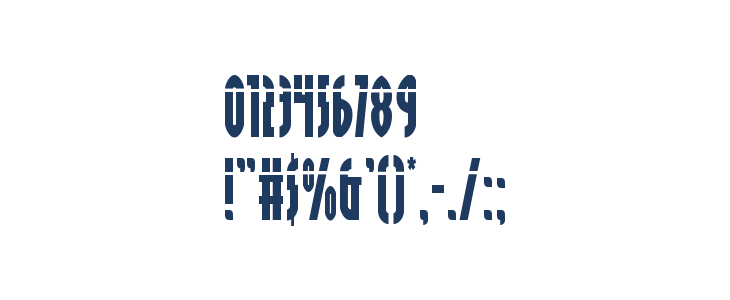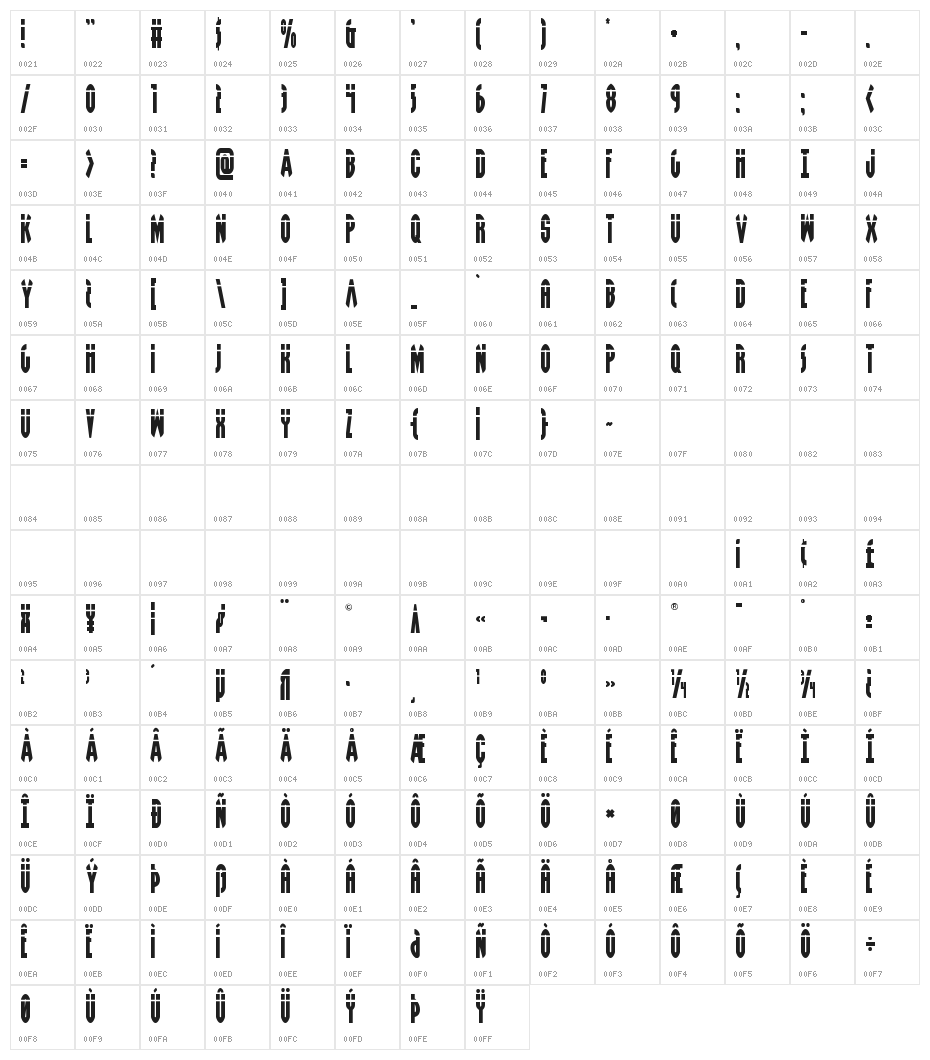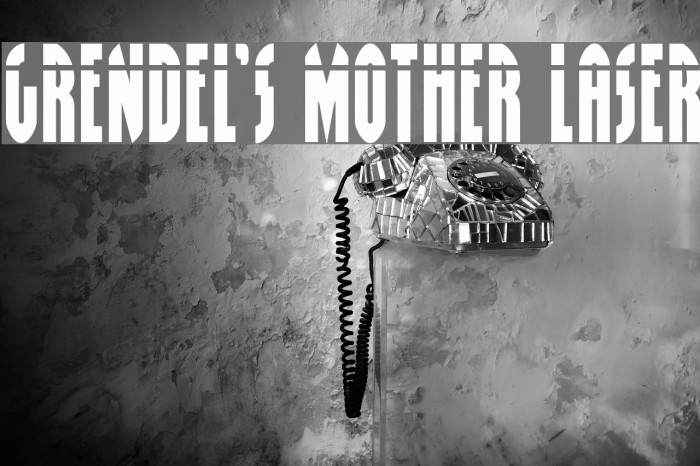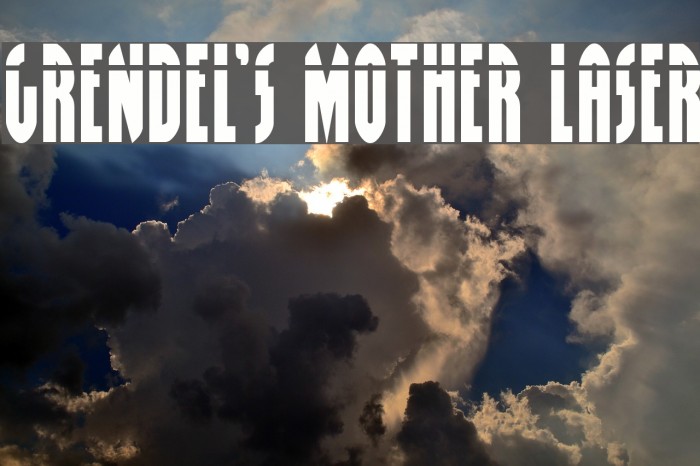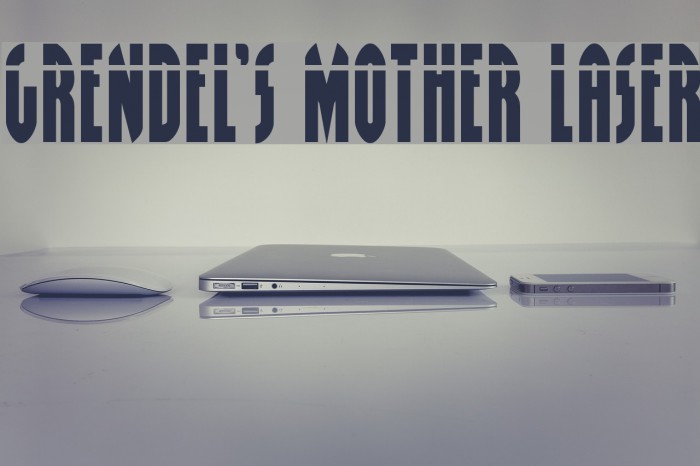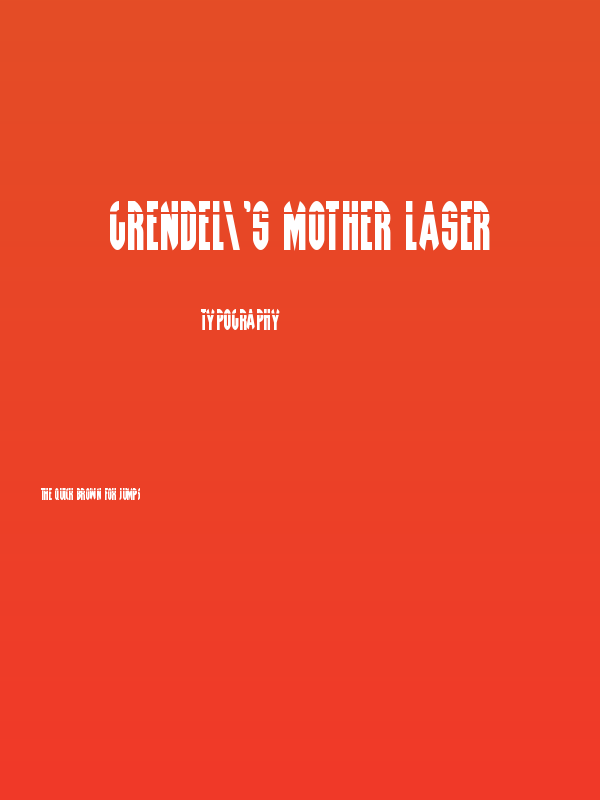
Grendel's Mother Laser Font
Grendel's Mother Laser Description
This font features a bold and striking design with a distinctly modern and futuristic aesthetic. The characters are heavily stylized with sharp angles and geometric shapes, creating a sense of movement and energy. The uppercase letters are particularly prominent, with a unique cut-out effect that adds depth and dimension. The numbers and special characters maintain the same boldness and angularity, ensuring consistency across all glyphs. This font is ideal for making a strong visual impact, suitable for projects that require a dynamic and attention-grabbing typeface.
| Proposed Projects | Ideal for posters, album covers, video game graphics, and branding that requires a futuristic and bold look. |